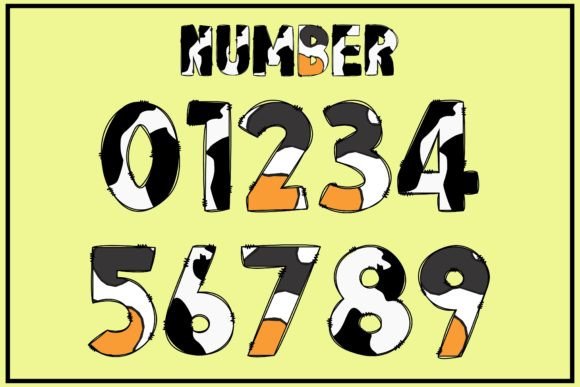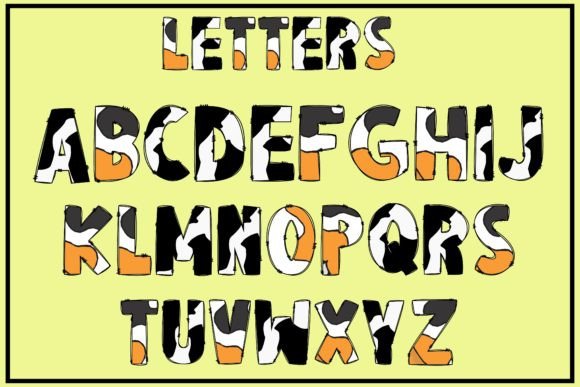
The Joy of Cow Font: A Friendly and Playful Design Companion
I’ll never forget the time I was working on a project for a children’s birthday party invitation. I had all the design elements ready – the colors, the graphics, the overall vibe – but something was missing. The font I was using just wasn’t cutting it. It was too serious, too boring. I needed something that would capture the playful spirit of the party, and fast! That’s when I stumbled upon Cow Font, and let me tell you, it was love at first sight! 🐄
A Personal Review of Cow Font
Cow Font is a friendly cow print color font that embodies playfulness and is the perfect choice for pretty much anything that requires a jolly touch. Here’s what I love about it:
- ✨ Unique and eye-catching design that’s sure to stand out
- ✅ Easy to read, even in smaller sizes
- 💕 Perfect for designs that need a playful and whimsical touch
- 🎉 Great for titles, headings, and emphasis text
Of course, no font is perfect, and Cow Font has a few small quirks:
- 🤔 Some users may find the cow print pattern a bit distracting for body text
- ⚠️ Limited use in formal or professional designs, as it may come across as too playful
The Backstory of Cow Font
Cow Font was designed by a creative team that wanted to create a font that would bring a smile to people’s faces. Inspired by the playful and carefree spirit of cows, they designed a font that’s both fun and functional. With its unique cow print design and wide range of uses, Cow Font has become a favorite among designers, crafters, and creative hobbyists.
| Font Name | Cow Font |
| Author | CHEETAH DOODLE |
| What is Cow Font? | Cow Font is a friendly cow print color font that’s perfect for designs that need a playful and jolly touch. |
| Is Cow Font suitable for formal designs? | No, Cow Font is best suited for informal designs, such as party invitations, social media graphics, and craft projects. |
| Does Cow Font support OpenType features? | Yes, Cow Font supports OpenType features, such as glyphs and stylistic alternates. |